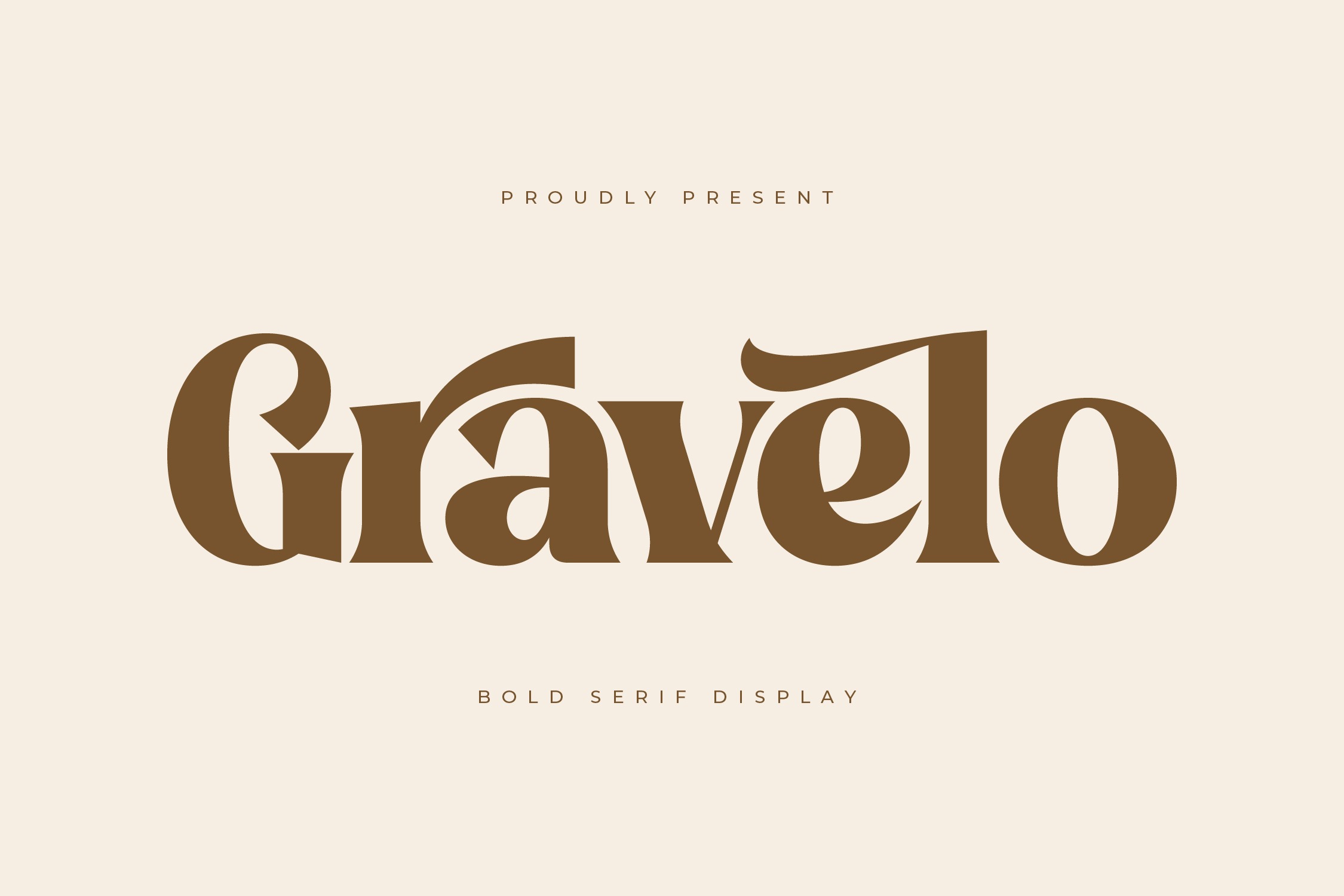
Gravelo Font
Gravelo Font is a clean and thoughtfully built typeface that works seamlessly for both professional branding and everyday creative uses. Gravelo – Bold Serif Display , from Letterena, is a Luxury Serif font, suitable for any projects such as: logos, branding projects, homeware designs, product packaging, mugs, quotes, posters, shopping bags, t-shirts, book covers, name card, invitation cards, greeting cards, label, photography, watermark, special events, and all your other luxury and beautiful projects that need a Luxury Serif taste.